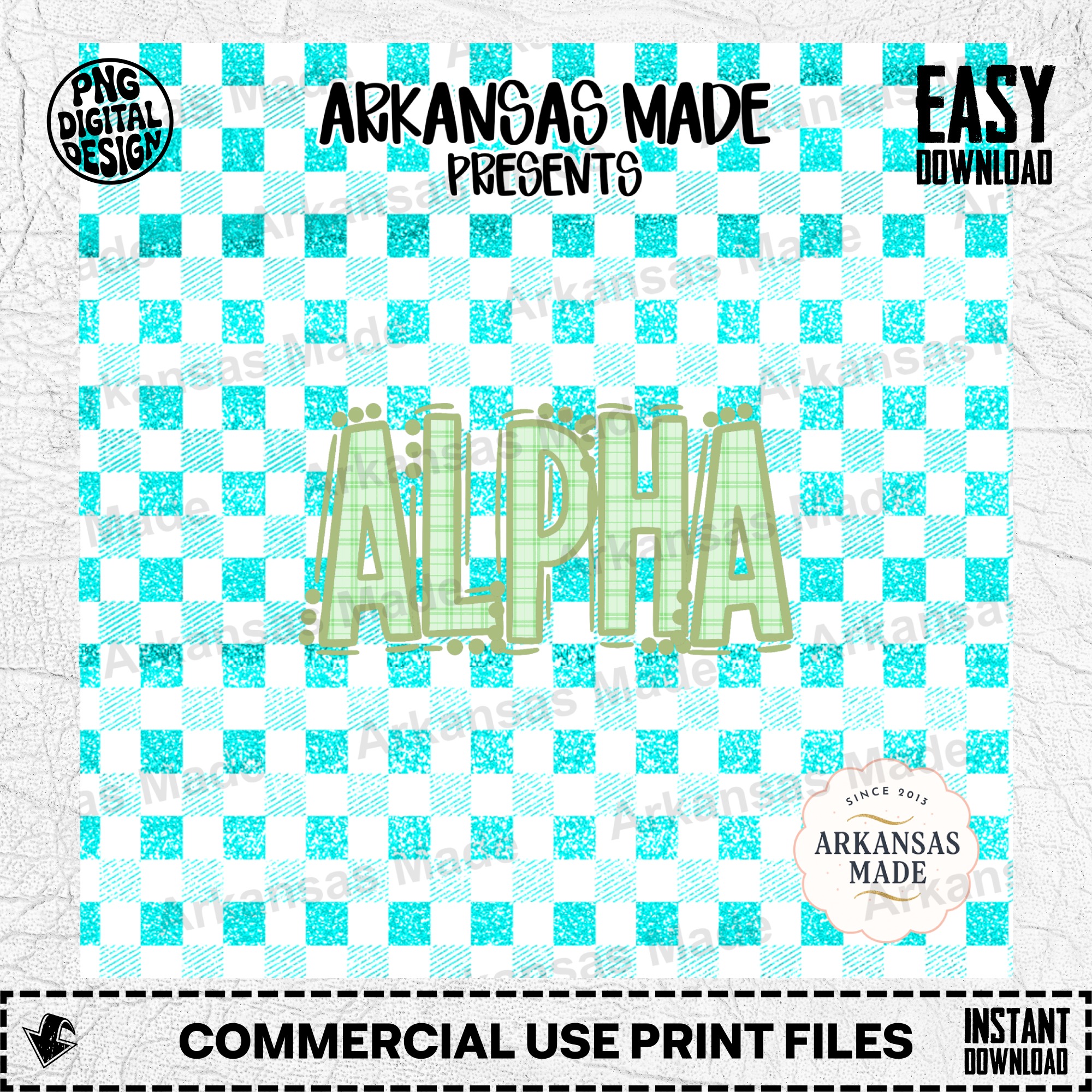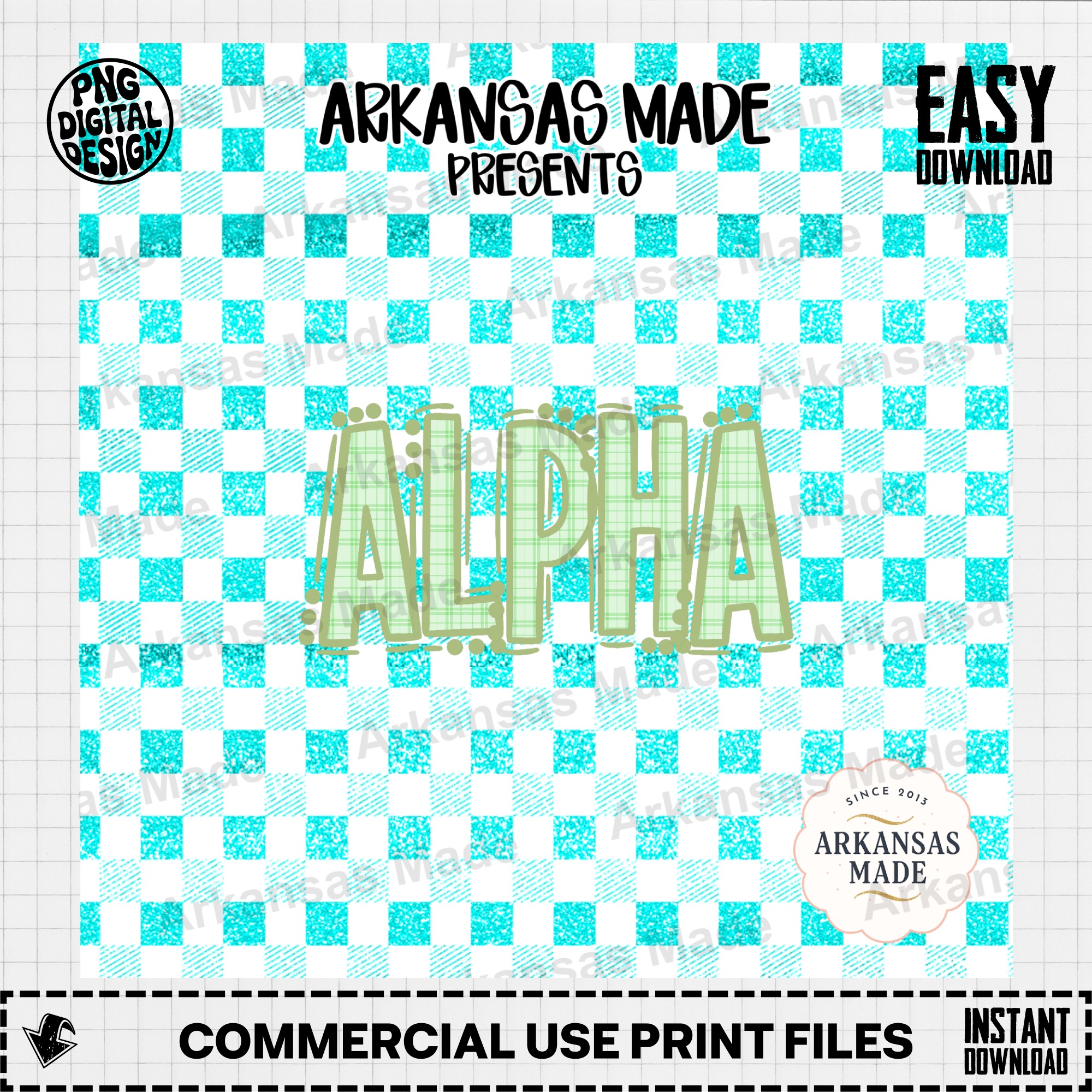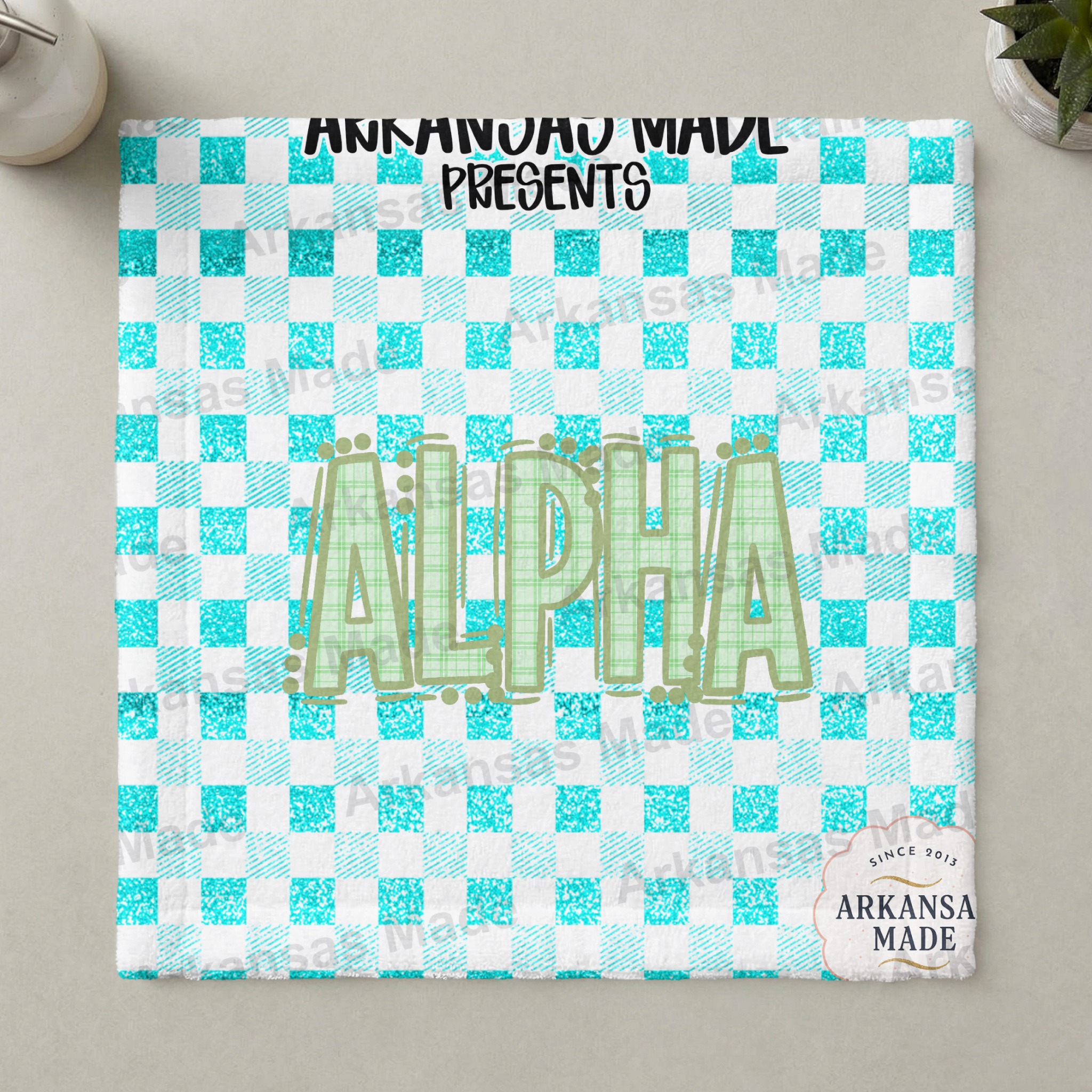
Elevate your projects with this vibrant Plaid Gingham Alpha Digital Set! Perfect for sorority crafts, personalized gifts, and sublimation designs. This unique digital download features charming light green plaid letters, outlined in a deeper green, set against a lively faux glitter teal and white buffalo check background. Ideal for sorority sisters, college students, and crafters, these versatile letters add a touch of preppy charm to any creation. Use them for custom apparel, dorm decor, or thoughtful Big/Little gifts.